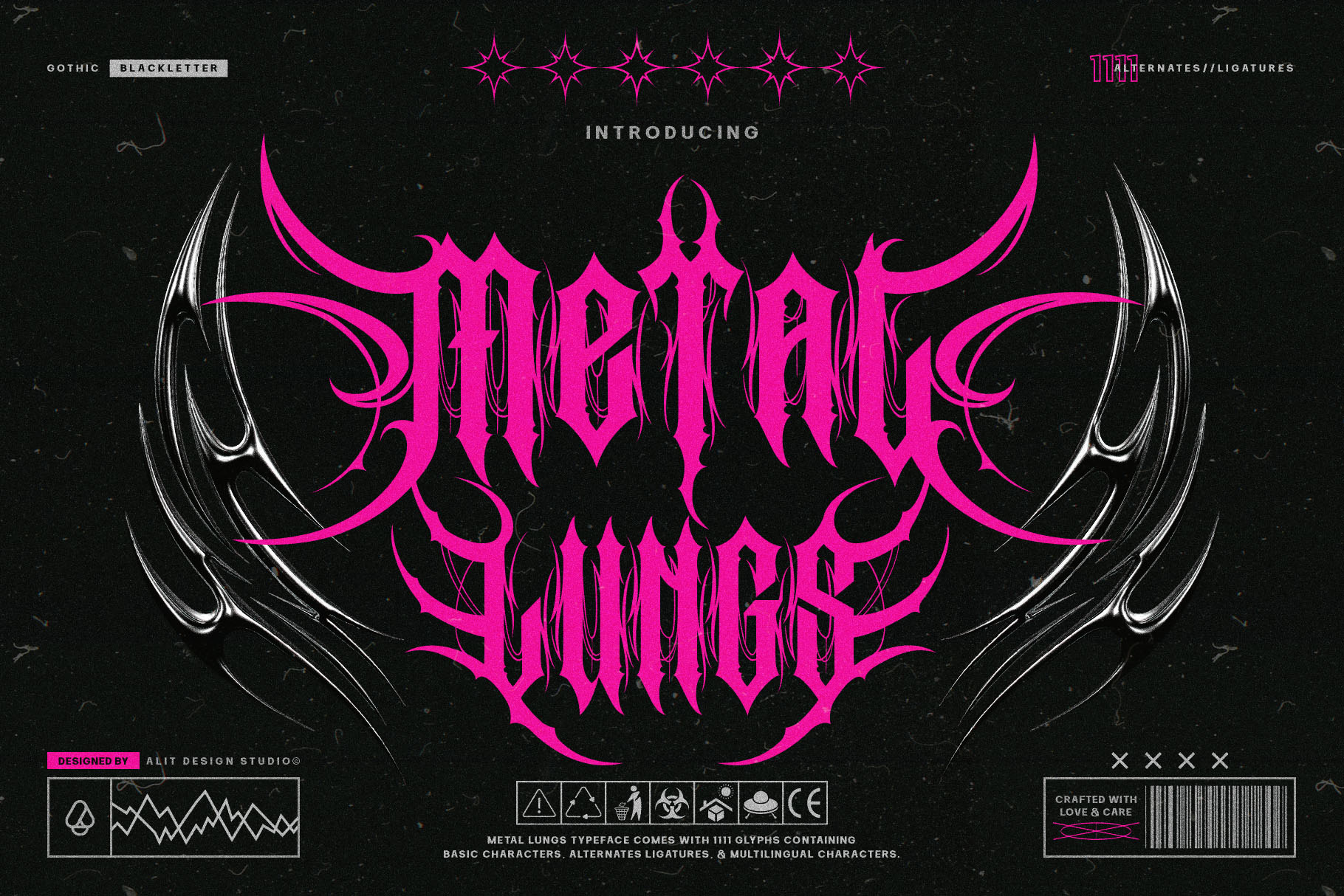
Metal Lung Typeface
Introducing the "Metal Lung Typeface" - an epitome of raw power and rugged elegance. Inspired by the ferocity of black metal music and the untamed beauty of rocky terrains, this font is a testament to the dark allure of the underground.
Crafted with meticulous detail, each letter embodies the essence of blackletter typography, yet veers into uncharted territories with its edgy modifications. Sharp, angular lines carve through the stark darkness, reminiscent of jagged spines jutting out from a desolate landscape.
The "Metal Lung Typeface" exudes a primal energy, evoking images of ancient runes etched into weathered stone. Its bold presence commands attention, drawing the eye with its stark contrast and formidable presence.
Perfect for album covers, posters, merchandise, and branding projects that demand a touch of the macabre, this font stands as a testament to the unyielding spirit of the underground metal scene.
Unleash the power of darkness with the "Metal Lung Typeface" and make your designs roar with primal intensity.